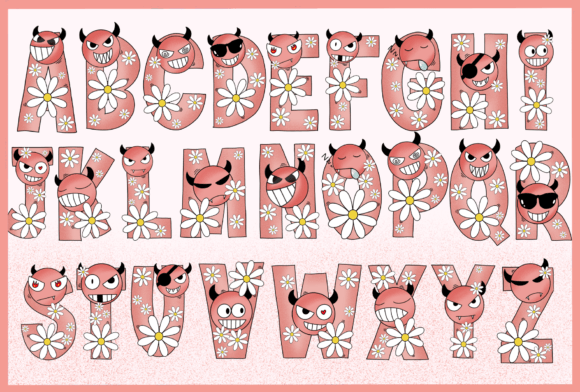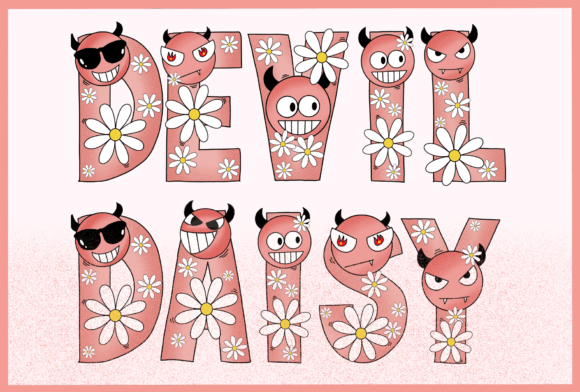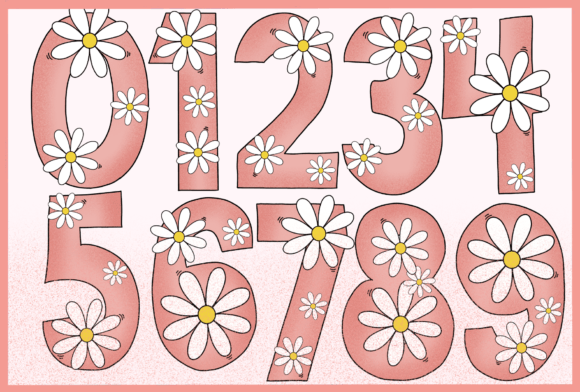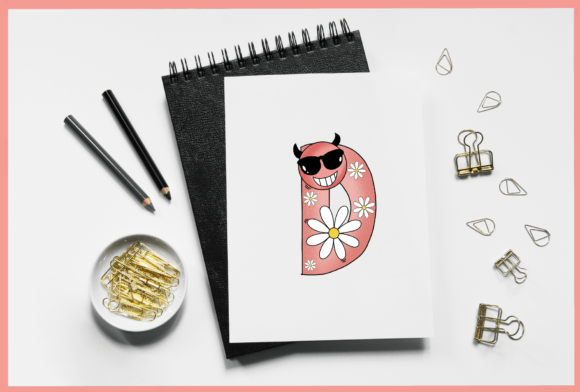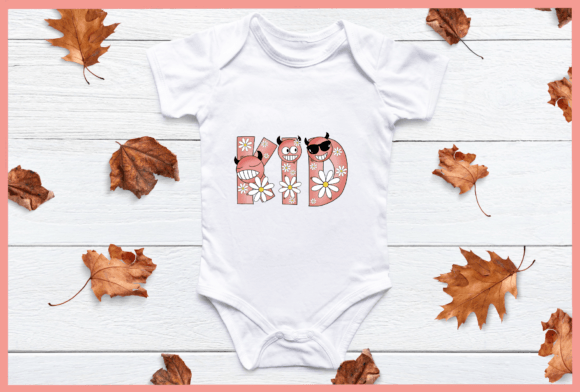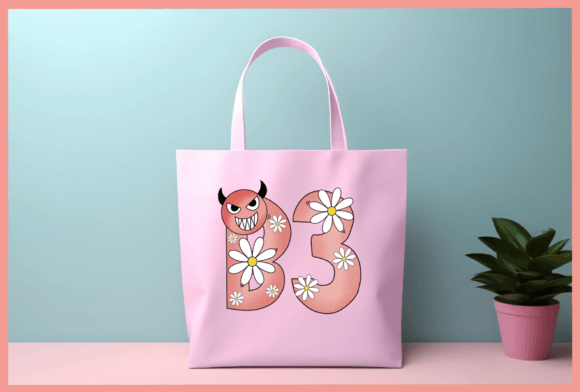
Introduction to Devil Daisy Font
Have you ever found yourself rummaging through your design files, searching for that one perfect font to add a dash of whimsy to your latest creative project? Maybe you’re crafting a birthday card for a friend, or designing a party banner for a special occasion. Whatever the case may be, the right font can make all the difference in elevating your design from ordinary to extraordinary.
Enter the Devil Daisy Font, a delightful all-caps typeface that combines mischievous devil faces with playful flowers, creating a one-of-a-kind decorative charm. This quirky design is the perfect choice for adding a light-hearted touch to any project, and with its transparent background and high-quality design, it’s a valuable resource for designers of all levels.
Key Features of Devil Daisy Font
- High-quality design resource with a unique, elegant style, perfect for creative projects.
- Designed with precision, Devil Daisy Font offers a high-resolution output, ideal for print and digital applications.
- Comes in a range of sizes, from 8pt to 100pt, making it versatile for various design needs.
- Each character is carefully crafted to ensure a smooth, even texture, adding to the font’s sophistication.
- Perfect for use in creative projects, including logos, branding, and editorial design, Devil Daisy Font is a valuable design resource.
Honest Review: Devil Daisy Font
I recently had the chance to work with the Devil Daisy Font and I must say, it’s been a game-changer for my creative project. This font is a high-quality design resource that can add a touch of elegance to any design.
- ✨ Unique and quirky design that sets it apart from other fonts
- ✨ High quality, with clear and crisp lines that make it perfect for print or digital use
- ✨ Can be used on a transparent background, giving designers the flexibility to use it in a variety of creative ways
- ⚠️ Limited character set, which may not be suitable for projects that require a wide range of characters
- ⚠️ May not be suitable for use in very small sizes, as the details can get lost
Overall, I’m really impressed with the Devil Daisy Font and would definitely recommend it to other designers. It’s a great resource to have in your toolkit, and can add a unique touch to any design project.
The Devil Daisy Font is a high-quality design resource perfect for any creative project. With its unique style and versatility, it’s an excellent choice for designers and artists looking to add a touch of elegance to their work.
Tips for Getting the Most Out of the Devil Daisy Font
To get the most out of the Devil Daisy Font, try using it with a transparent background to create a modern and sleek design. You can also experiment with different font sizes and styles to add depth and interest to your project.
The Devil Daisy Font is perfect for a range of creative projects, including:
Graphic Design
Use the Devil Daisy Font to create eye-catching graphics and logos for your business or brand.
Wedding Invitations